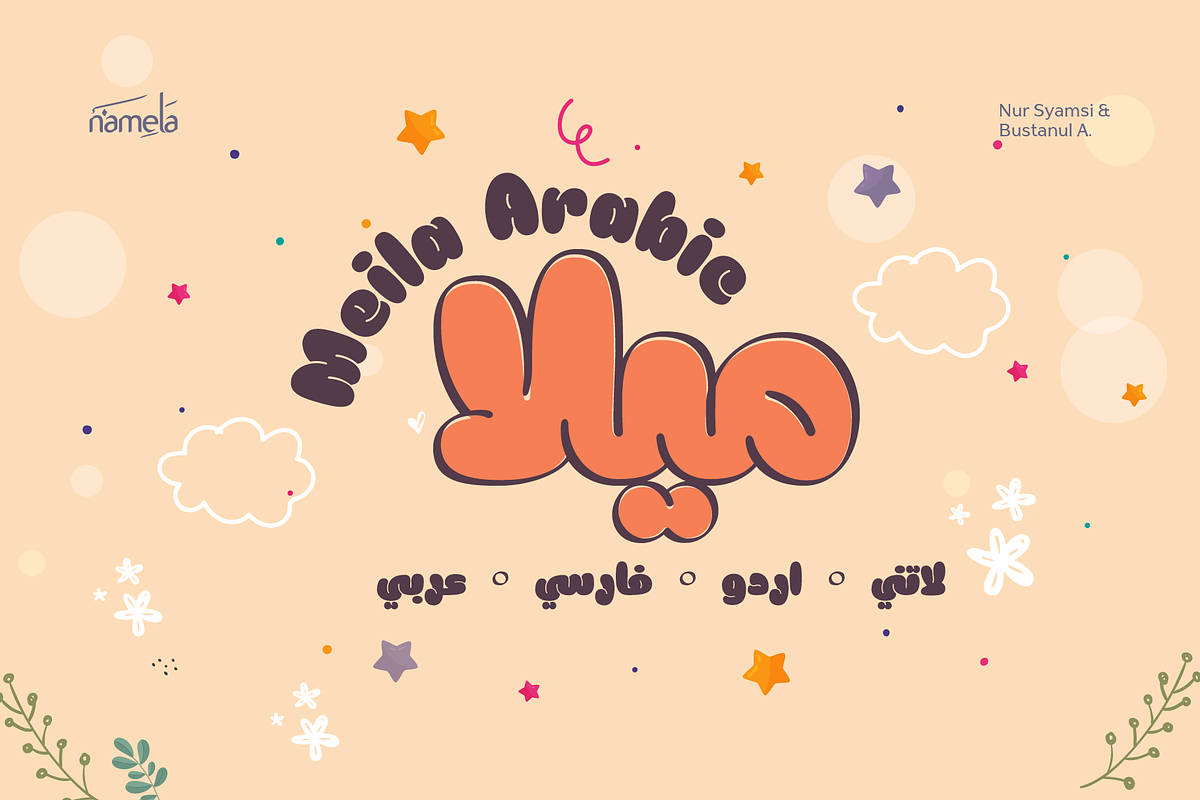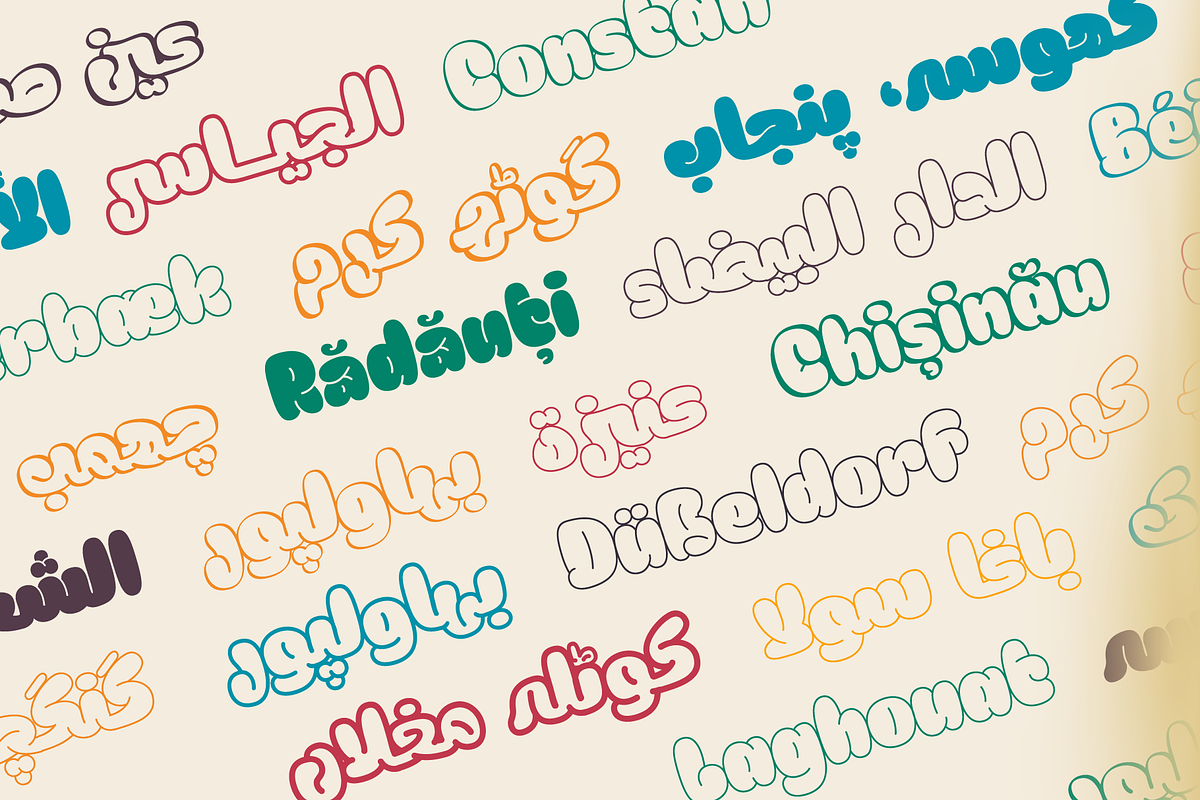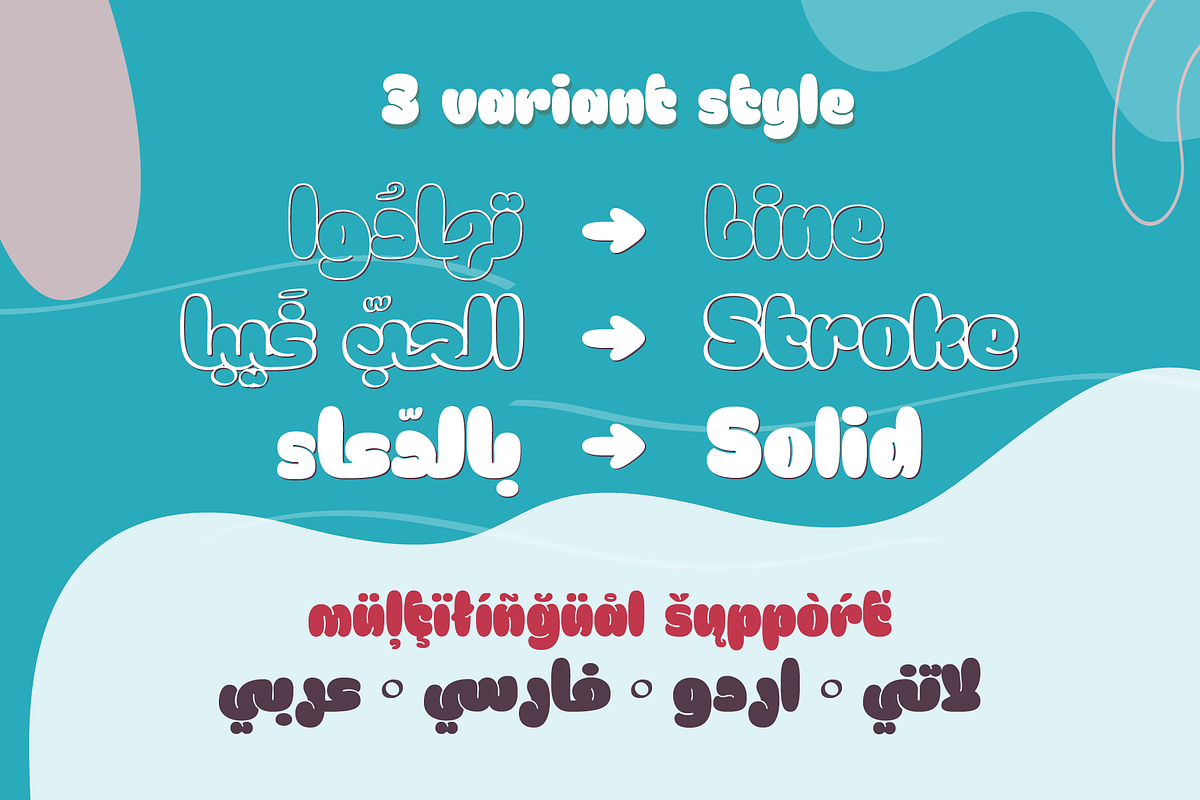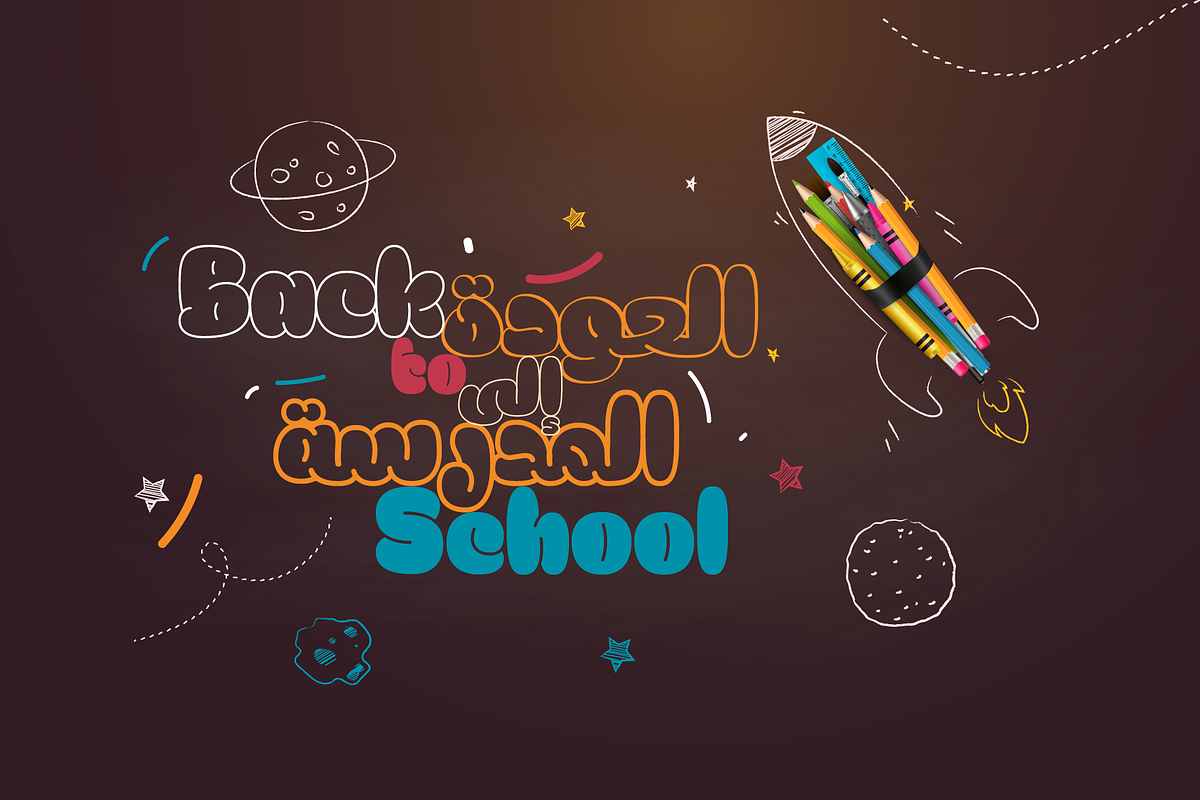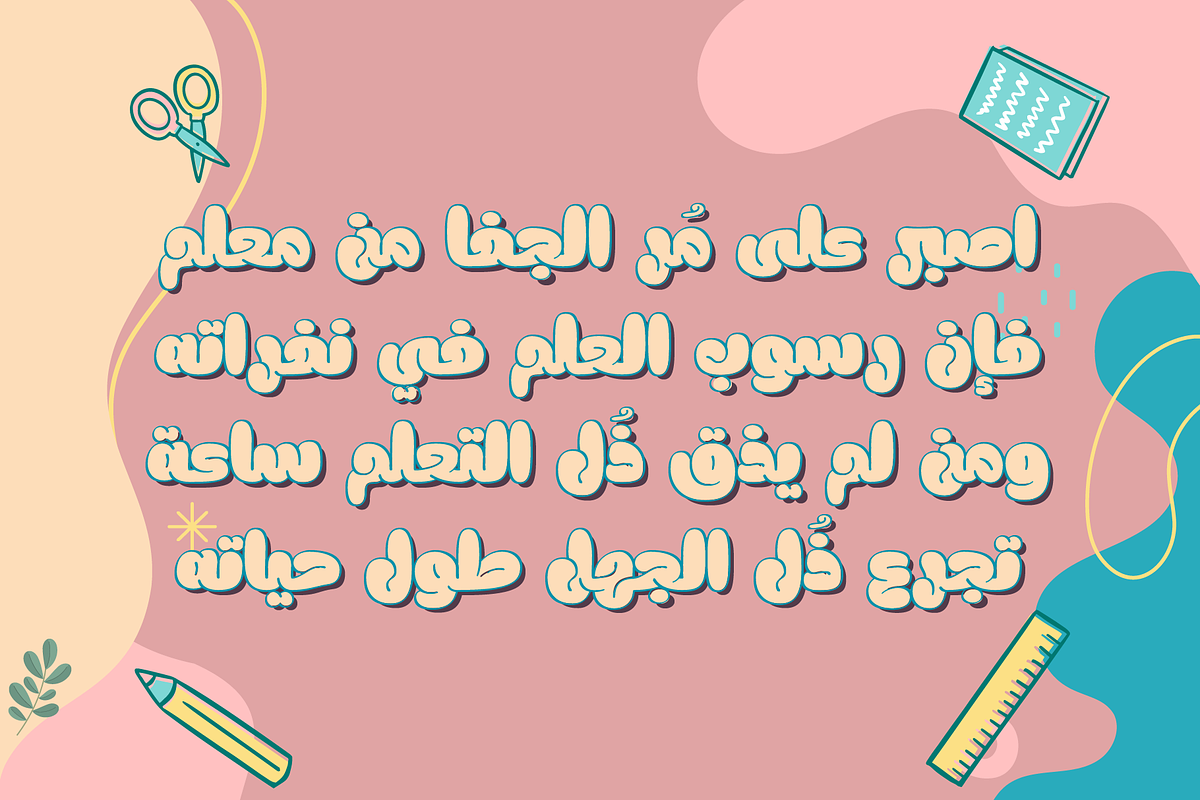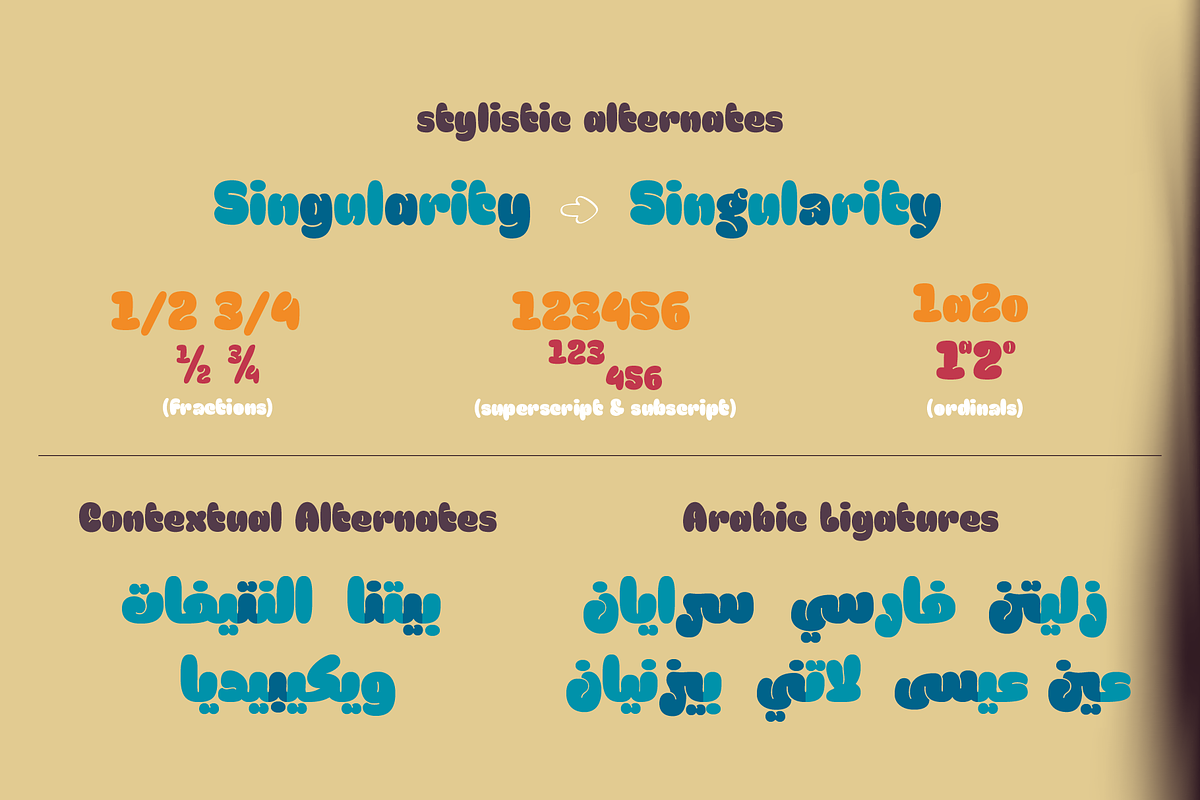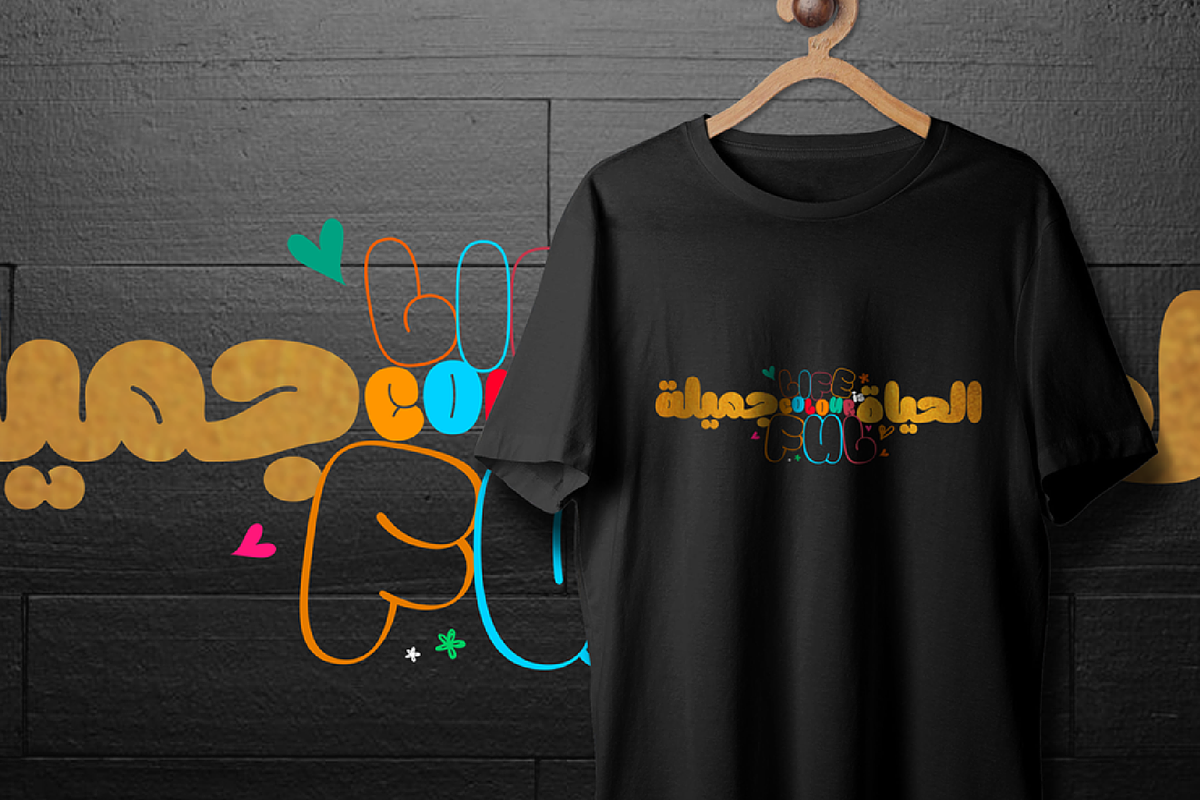
Meila Arabic - Cheerful Font Family
Meila Arabic is a delightful and charismatic typeface, characterized by its bold and endearing characters. Its charm and smooth, almost whimsical lines, which are particularly noticeable on the outer edges, creating a visually pleasing and approachable quality. On the inside, you’ll find a single line, neatly serving as counter space.
In addition to its Latin script, Meila Arabic Font thoughtfully incorporates Arabic glyphs, accommodating Arabic, Urdu, and Farsi scripts. This makes it a versatile choice for designers looking to seamlessly integrate multilingual elements into their projects. Whether you’re working on branding, marketing, or any creative endeavor, Meila Arabic Font promises to infuse your work with a joyful and captivating design.
Meila Arabic consists of three variants and thickness variants (7 styles Total); Lines, Strokes and Solids. Meila font is very suitable for children’s themed designs or others such as; T-Shirt Designs, Birthday invitations, Product packaging, Logos etc.